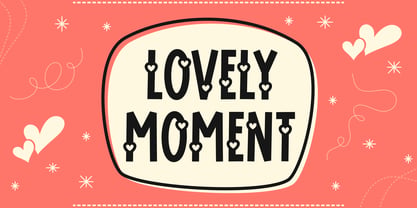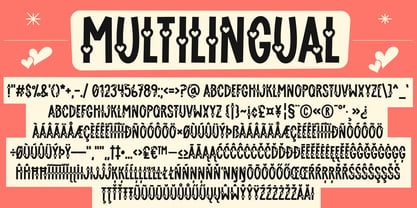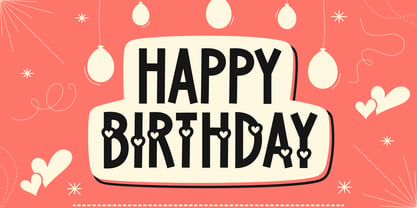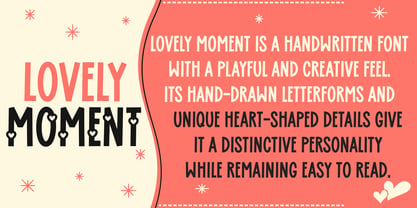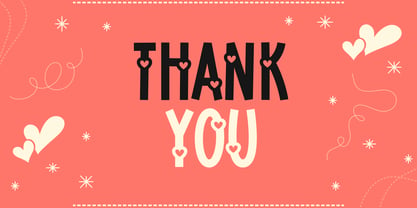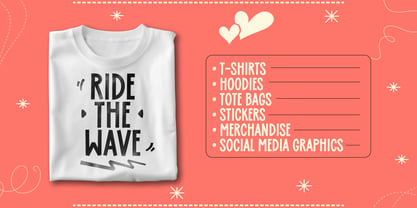
Lovely Moment
The Lovely Moment Font Family and published by RADesigns21. Lovely Moment contains 2 styles and family package options. More about this family
Lovely Moment is a playful handwritten font designed to bring warmth, charm, and personality to your designs. Featuring friendly letterforms and delightful heart-shaped details, it creates a cheerful and inviting look that feels both personal and expressive.
Perfect for children's projects, greeting cards, posters, stickers, packaging, social media graphics, invitations, and creative branding, Lovely Moment adds a handcrafted touch to any design. Its casual style and distinctive character make it an excellent choice for projects that call for a fun and approachable feel.
Whether you're creating for print or digital media, Lovely Moment helps turn everyday words into memorable designs.